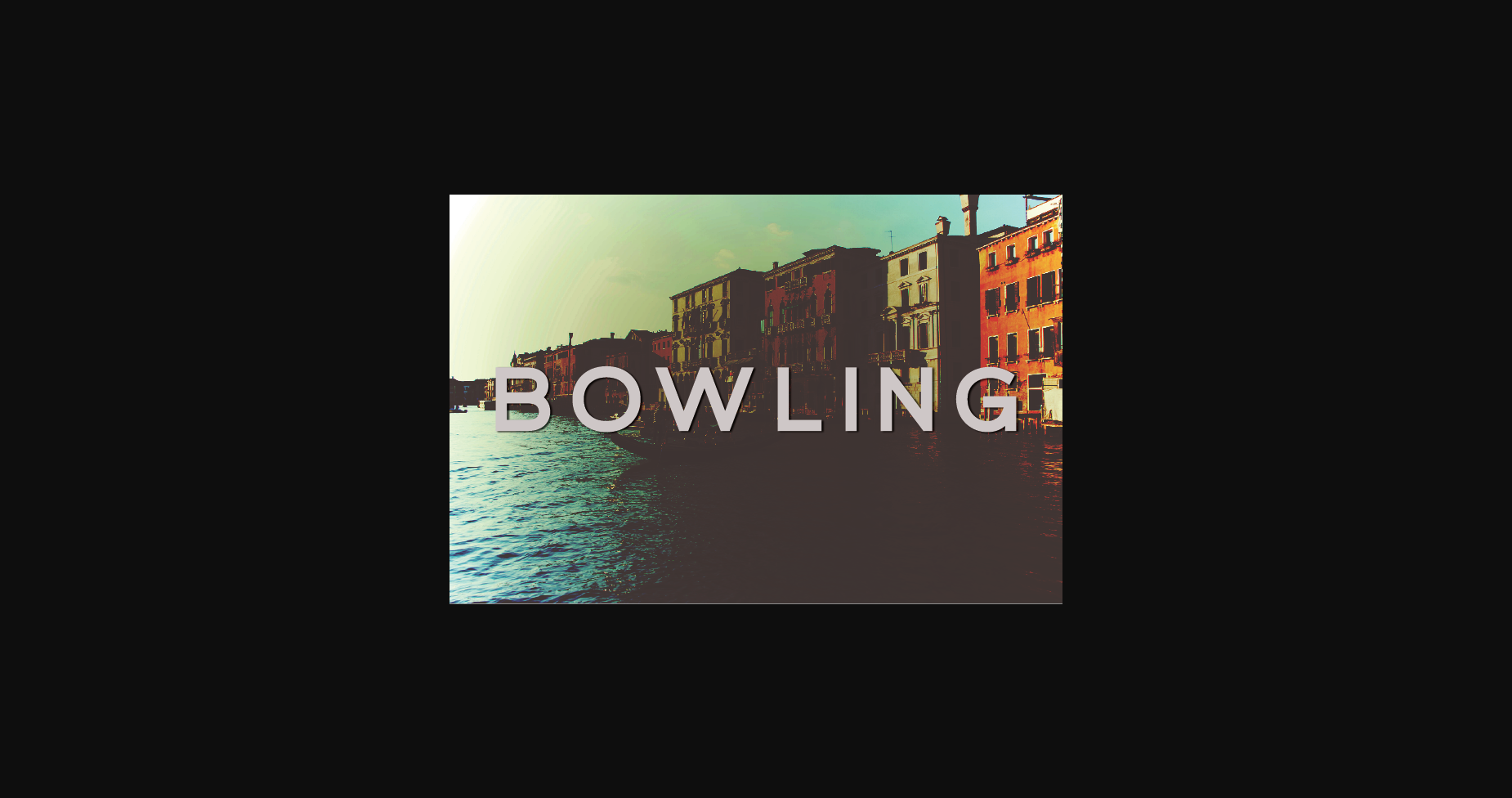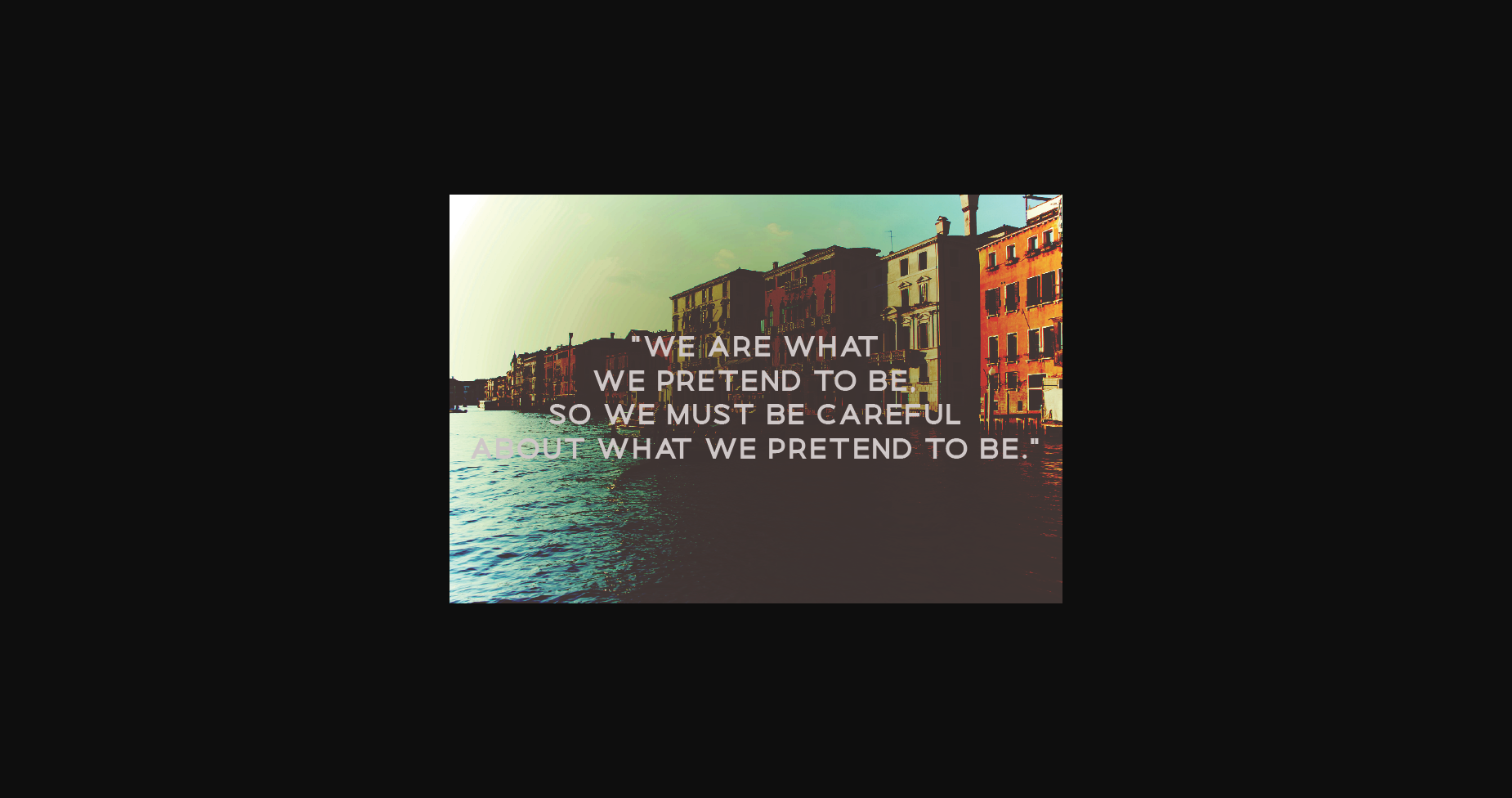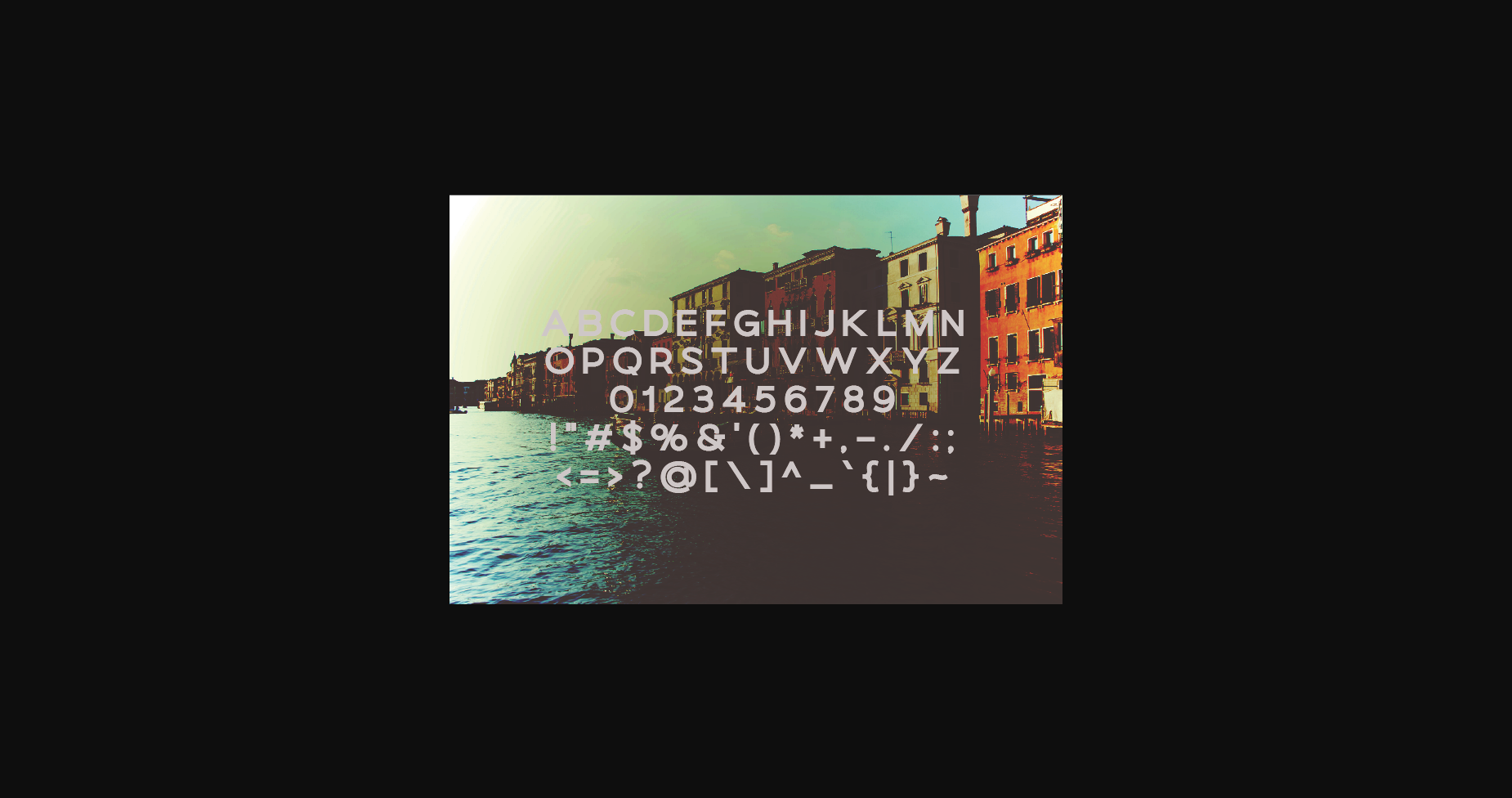
HomeSans Serif FontsBowling Font Sans Serif Fonts Bowling Font FacebookXPinterestWhatsApp 1 of 7 ... Bowling Font Poster 2... Bowling Font Poster 3... Bowling Font Poster 4... Bowling Font Poster 5... Bowling Font Poster 6... Bowling Font Poster 7... About Bowling Font Bowling is a modern and classy sans serif typeface. This extremely versatile font isperfect for logos, weddings, invitations, quotes, advertisements, print, magazines, and more! DOWNLOAD NOW People also explored Bedposka Font Cardolith Font Chromatical Font Pilates Font Gumara Font Xenial Font Pink Pastel Font Beauty Hands Font Adeylina Font 250 0 TagsBowlingBowling Font Previous articleLomeshing FontNext articleLobster Font LEAVE A REPLY Cancel reply Comment: Please enter your comment! Name:* Please enter your name here Email:* You have entered an incorrect email address! Please enter your email address here Website: Save my name, email, and website in this browser for the next time I comment. Personal Use Free Lovely Girl Personal Use Free Read more about this font Alinda Personal Use Free Read more about this font Starborn Font Personal Use Free Read more about this font Tanpax Personal Use Free Read more about this font BLOG How to Cut Any Font on Cricut: Convert a Font to SVG (Free) Turn any font into a clean SVG so it cuts crisp on Cricut - a quick 3-step workflow using a free font-to-SVG tool. Fonts That Capture the Spirit of New York City Best Fonts for YouTube Videos: Make Your Thumbnails Stand Out 5 Fonts That Will Dominate Design Trends in 2026